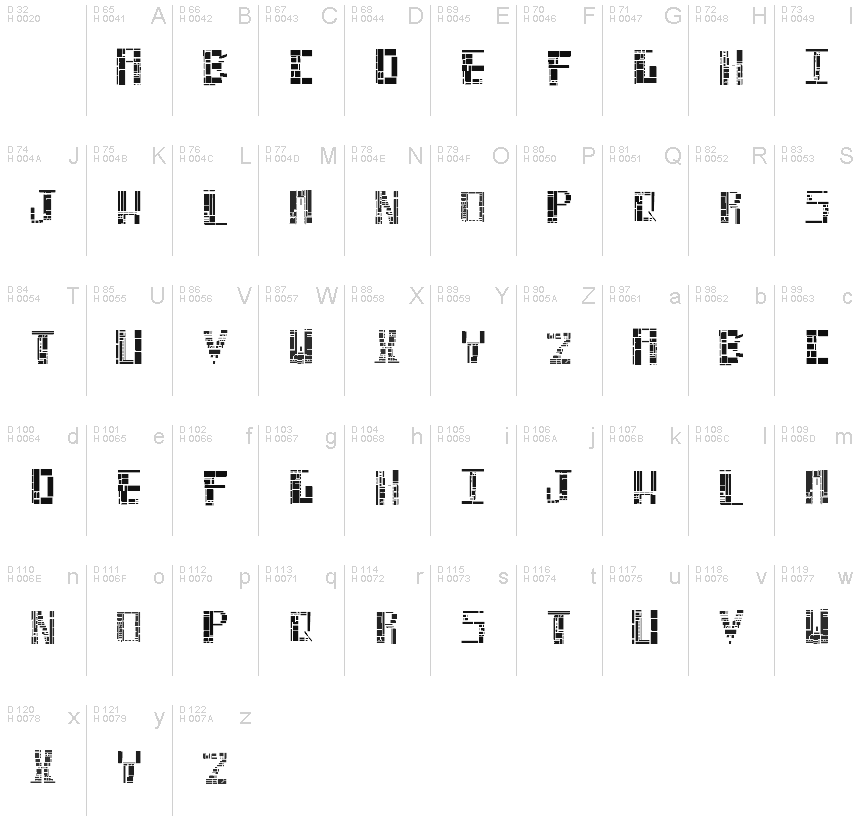
Netflix Font
Netflix Font, designed by Alex Steers, is a captivating display typeface that embraces a distorted aesthetic. Its bold, angular letterforms exude a sense of raw energy, breaking free from traditional typographic constraints.
This unconventional font possesses a striking visual presence, making it well-suited for a range of design applications, from bold headings and impactful branding to edgy editorial layouts. The font's distinct personality lends itself to projects seeking to convey a strong, unconventional identity, whether in the realms of film, music, or modern design.
Its uncompromising style invites designers to push the boundaries of typographic expression and create visually arresting compositions.
This unconventional font possesses a striking visual presence, making it well-suited for a range of design applications, from bold headings and impactful branding to edgy editorial layouts. The font's distinct personality lends itself to projects seeking to convey a strong, unconventional identity, whether in the realms of film, music, or modern design.
Its uncompromising style invites designers to push the boundaries of typographic expression and create visually arresting compositions.